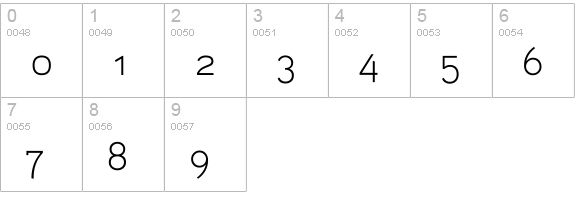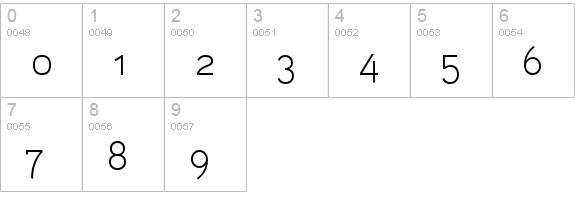
Aaux ProLight OSF Font Details
Aaux ProLight OSF font is a modern and elegant typeface designed for various design projects. Its sleek and sophisticated appearance makes it perfect for both digital and print applications. The light weight of this font adds a touch of refinement and subtlety to any design. What sets Aaux ProLight OSF font apart is its exceptional legibility and versatility, making it suitable for a wide range of design purposes. Whether used for branding, editorial design, web design, or any other creative project, this font is sure to make a statement. The best part is that Aaux ProLight OSF font is available for free download at FontsMarket.com. You can easily access this high-quality font and enhance your design projects with its clean and contemporary style. Don't miss out on the opportunity to elevate your designs with the timeless elegance of Aaux ProLight OSF font.